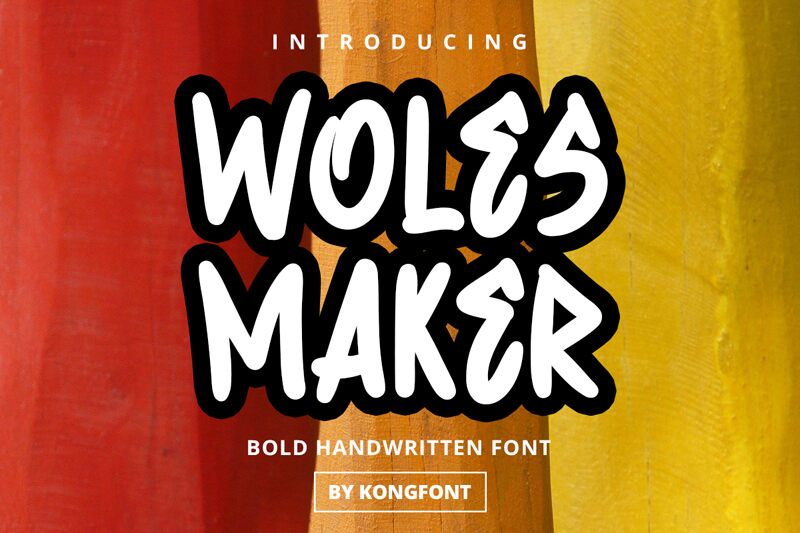
Woles Maker font family by Kong Font comes as a free personal use handwritten font family; dynamic, expressive, and innovative. Drawn with modern influence and a long experience transfer from the author, the new 6-font styles typeface is your go-to artistic workhorse. Professional, casual, and youthful, the one versatile family has a range of potential applications.
Create minimal logotypes, titles, handwritten content, posters, movie titles, and so much more. It will work seamlessly whether you’re using it for a publication print piece or a digital screen such as a website or an app.